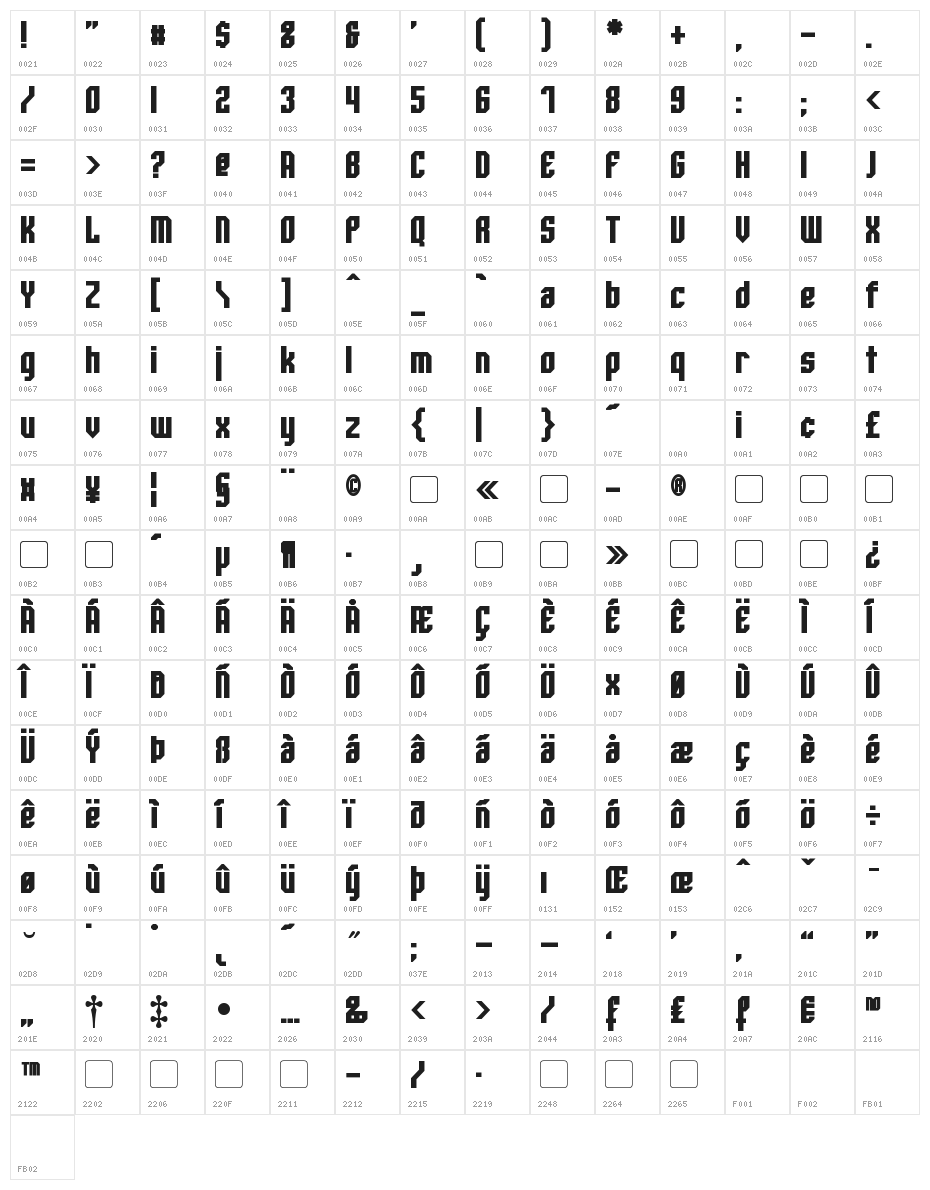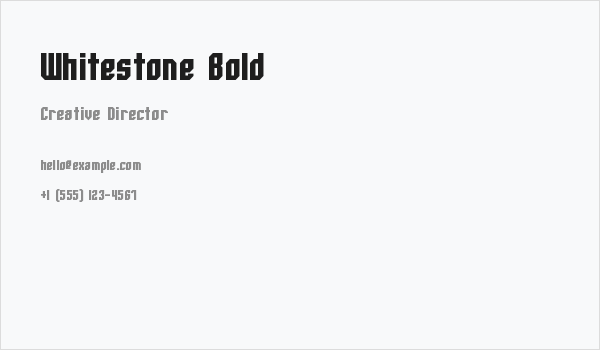
Whitestone Bold Font
Whitestone Bold Description
This font features a bold and geometric design, characterized by its strong, angular lines and blocky appearance. The uppercase and lowercase letters maintain a consistent width, giving the font a uniform and structured look. The numerals and special characters follow the same bold and angular style, ensuring cohesion across all elements. The font's design is reminiscent of industrial or futuristic themes, making it suitable for projects that require a strong visual impact. Its boldness and distinct shapes make it highly legible and attention-grabbing.
| Proposed Projects | Ideal for posters, logos, branding, and any design requiring a bold, impactful typeface. |